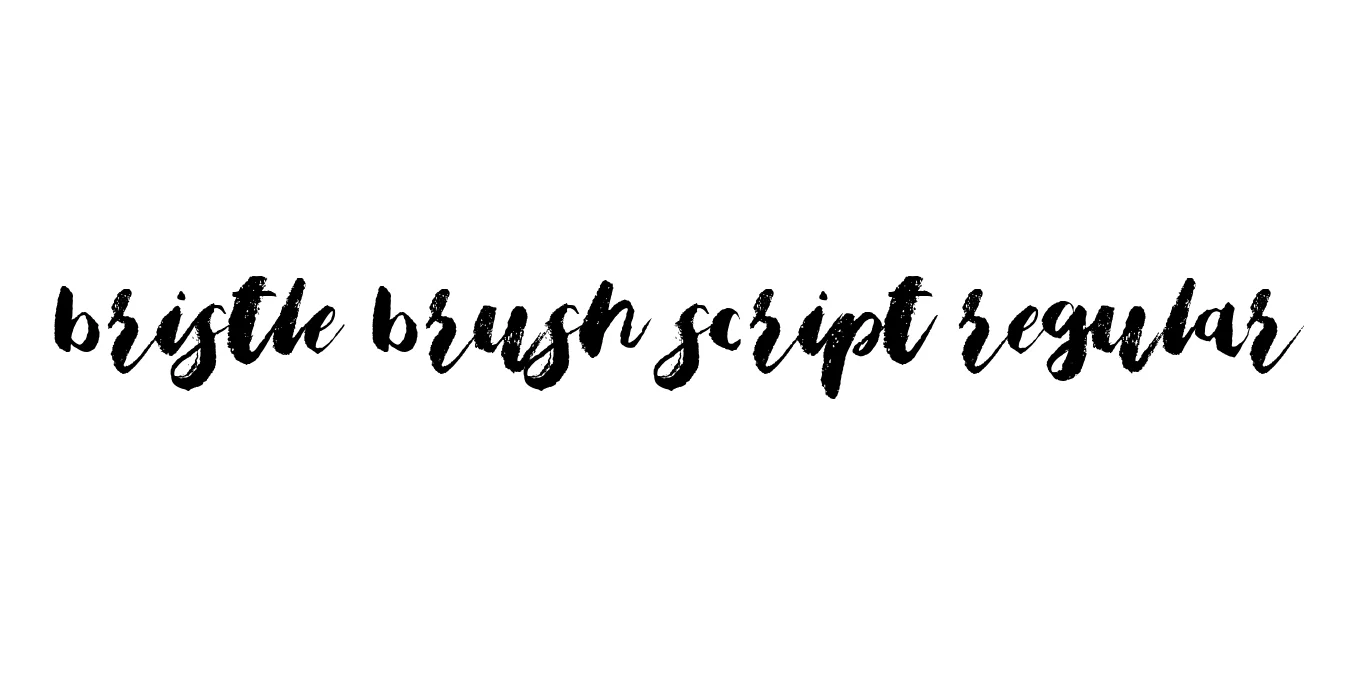
Bristle Brush Script Regular
Bristle Brush Script Regular is a masterfully crafted typeface that captures the raw, energetic essence of hand-painted calligraphy. Defined by its textured, dry-brush strokes, this font offers an authentic handmade feel that is both bold and expressive. Its natural flow and irregular edges make it an ideal choice for projects that require a human touch, moving away from the clinical perfection of digital typography.
This typeface excels in high-impact visual communication. With a comprehensive set of characters that include organic ligatures and stylistic alternates, Bristle Brush Script provides designers with the tools to create dynamic layouts. Whether used for large-scale headlines or subtle artistic accents, its distressed details remain sharp and legible, ensuring a professional finish across both print and digital mediums.
Bristle Brush Script Regular Best Uses
Perfect for creating rugged, authentic logos and brand identities with a handmade feel.
Ideal for high-energy t-shirt prints, streetwear, and clothing labels.
Excellent for eye-catching Instagram graphics, YouTube thumbnails, and creative quotes.
Highly effective for event posters, flyers, and promotional material that requires a sense of motion.